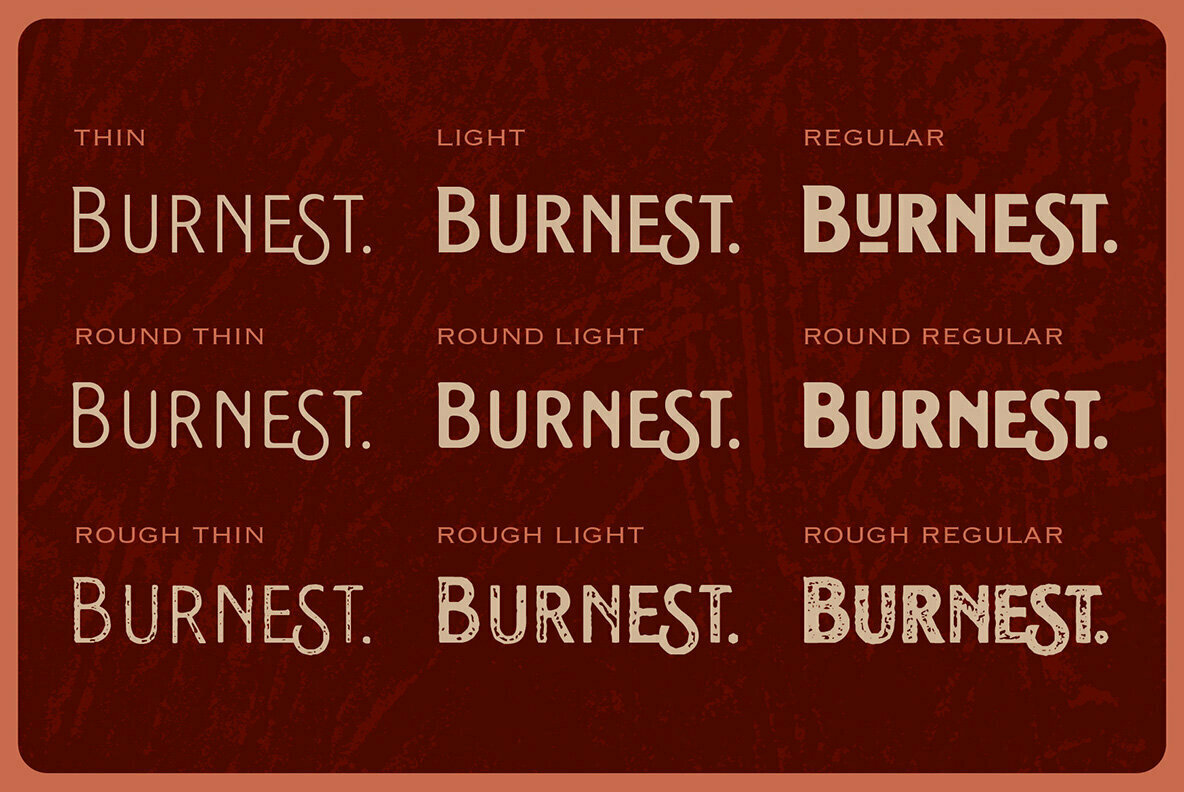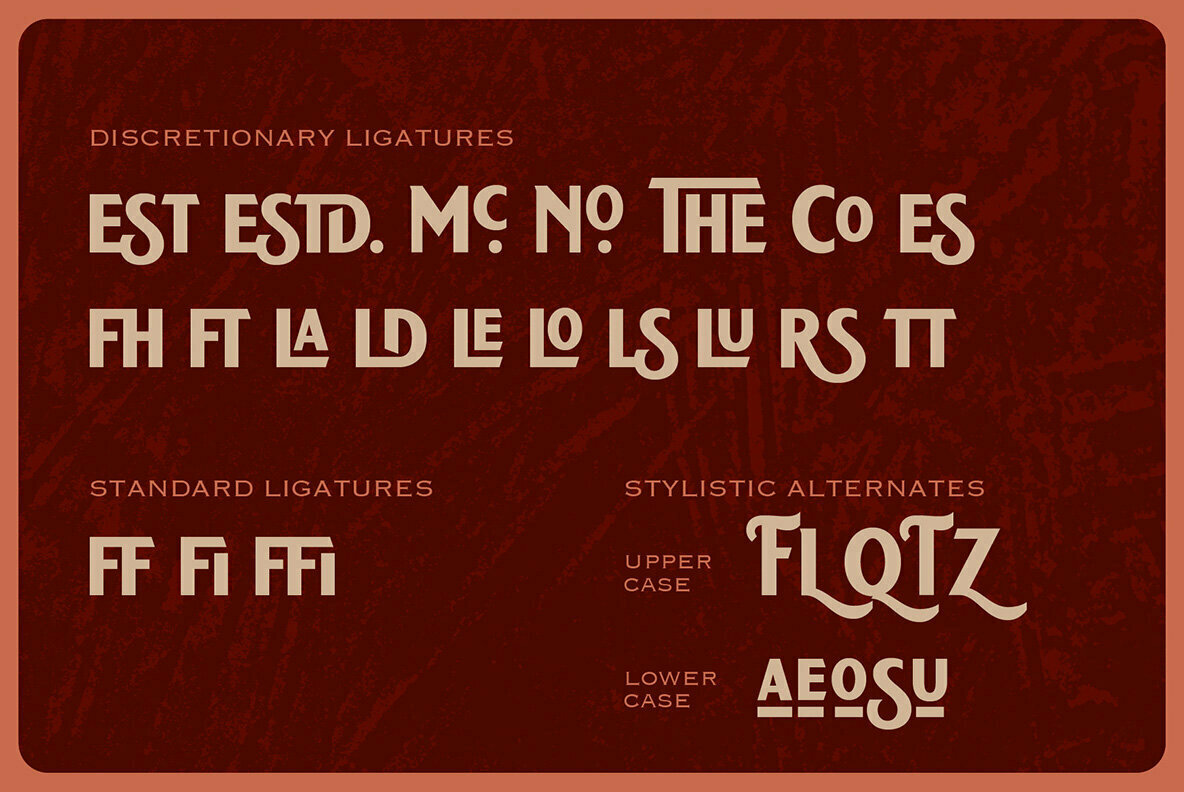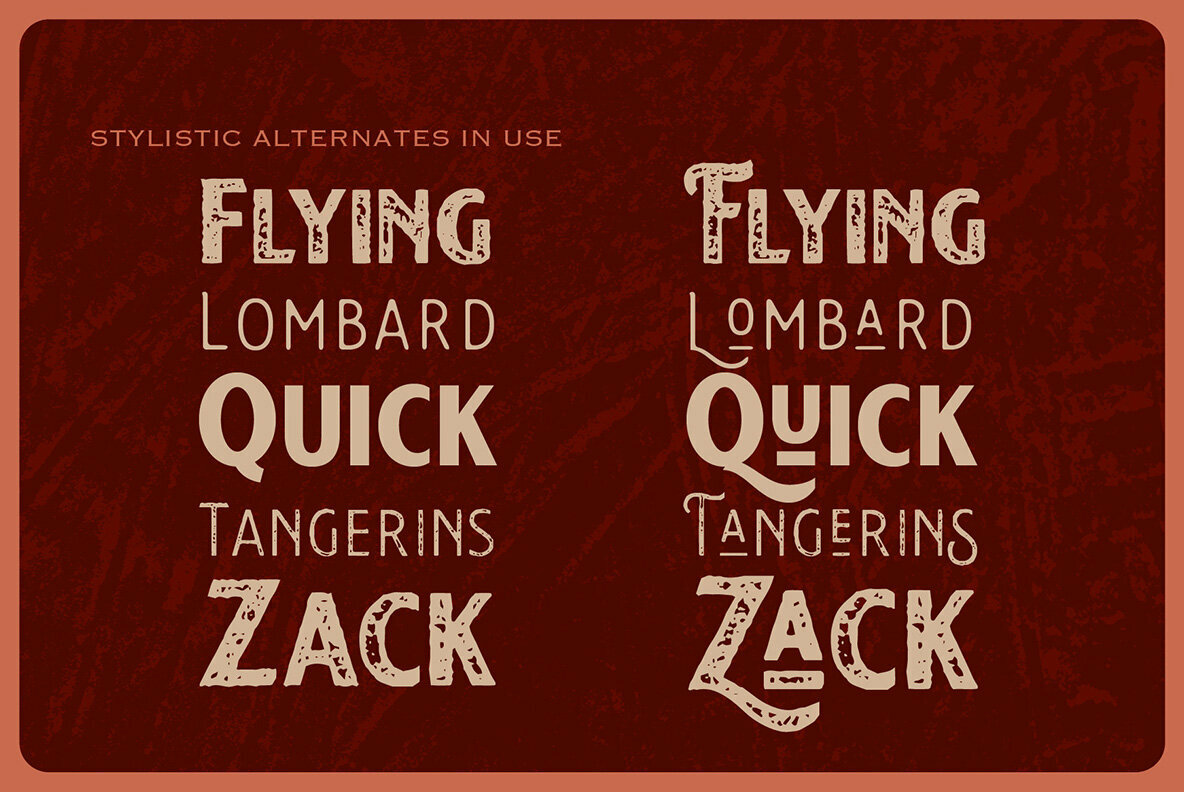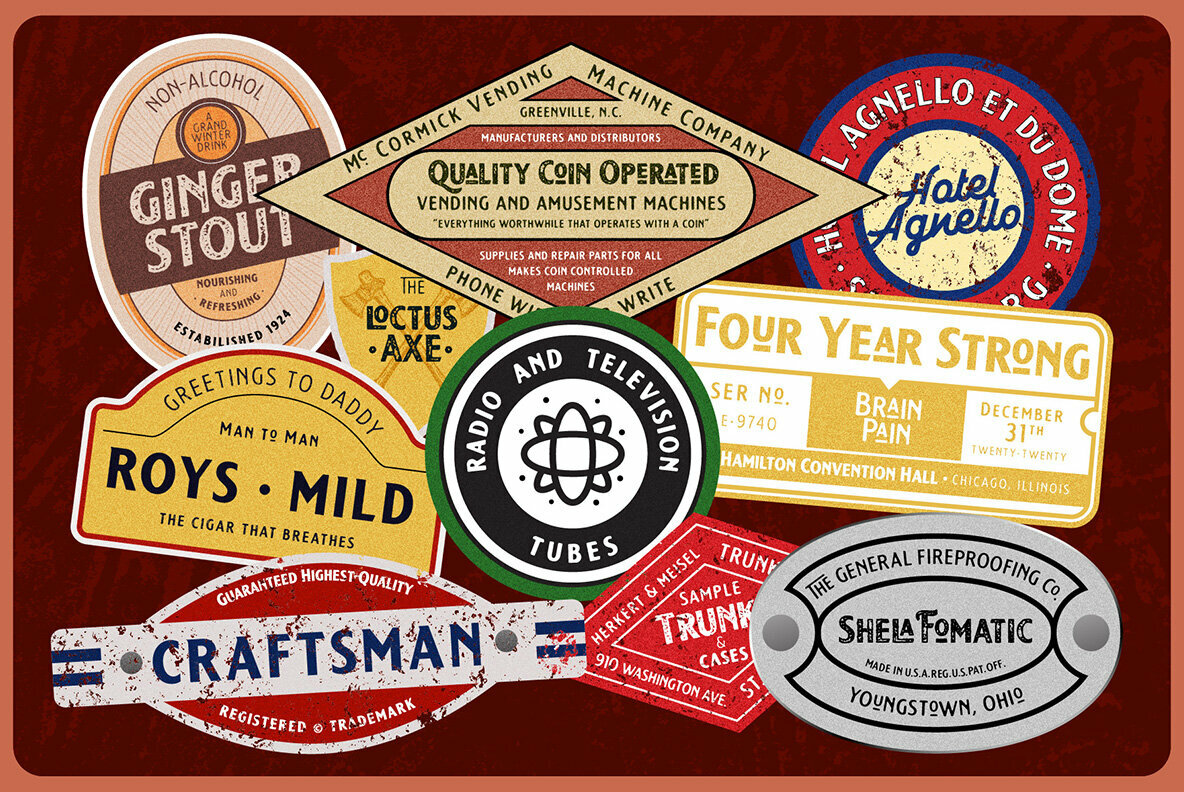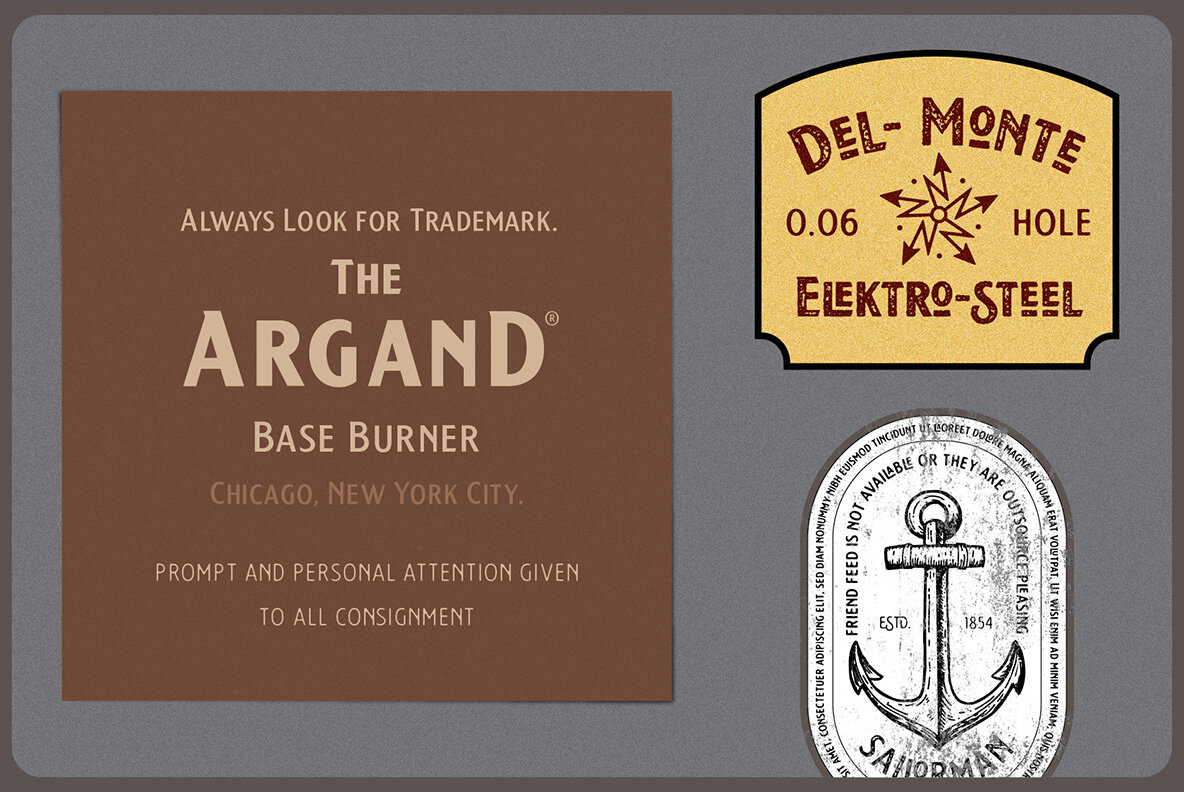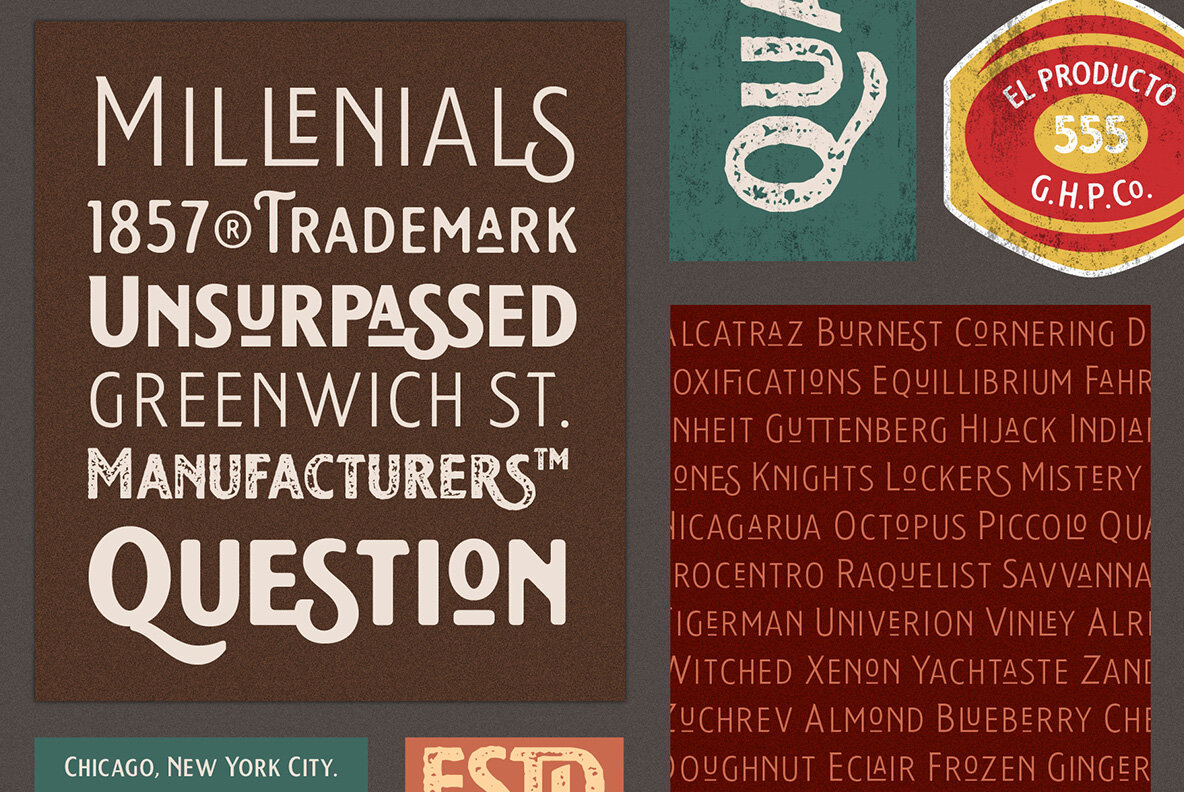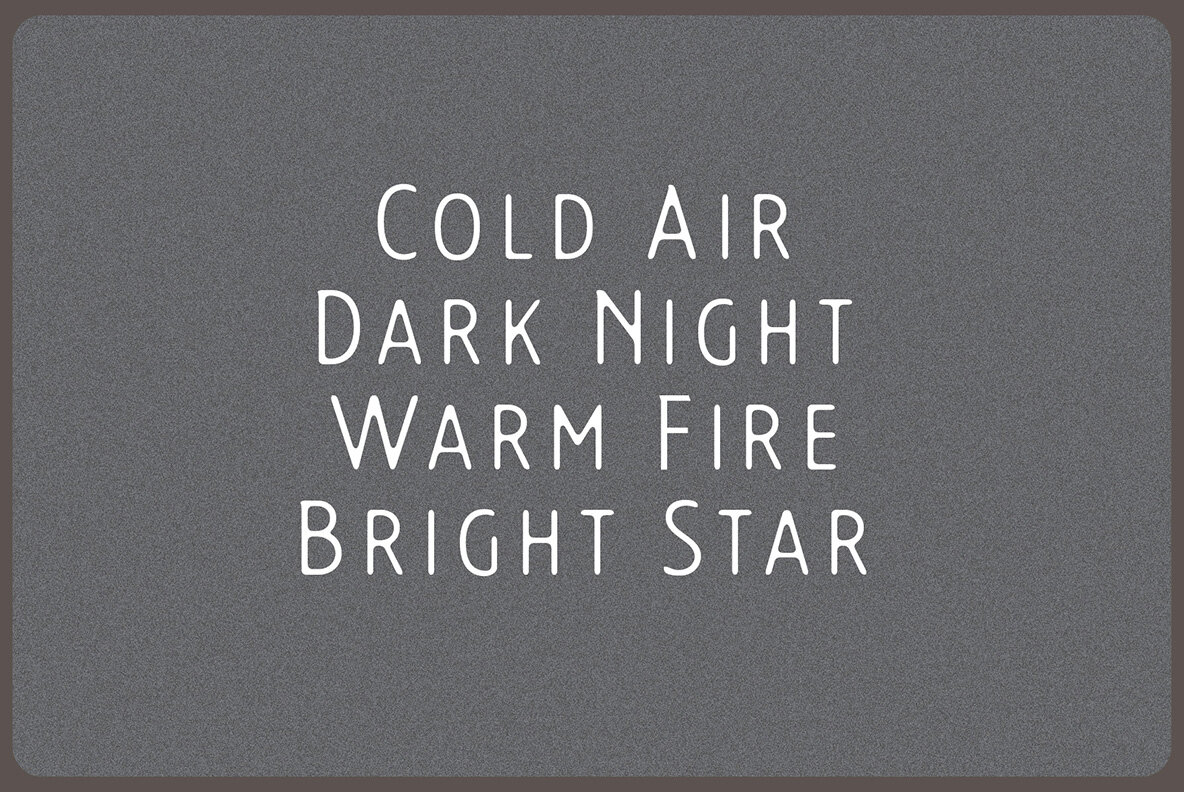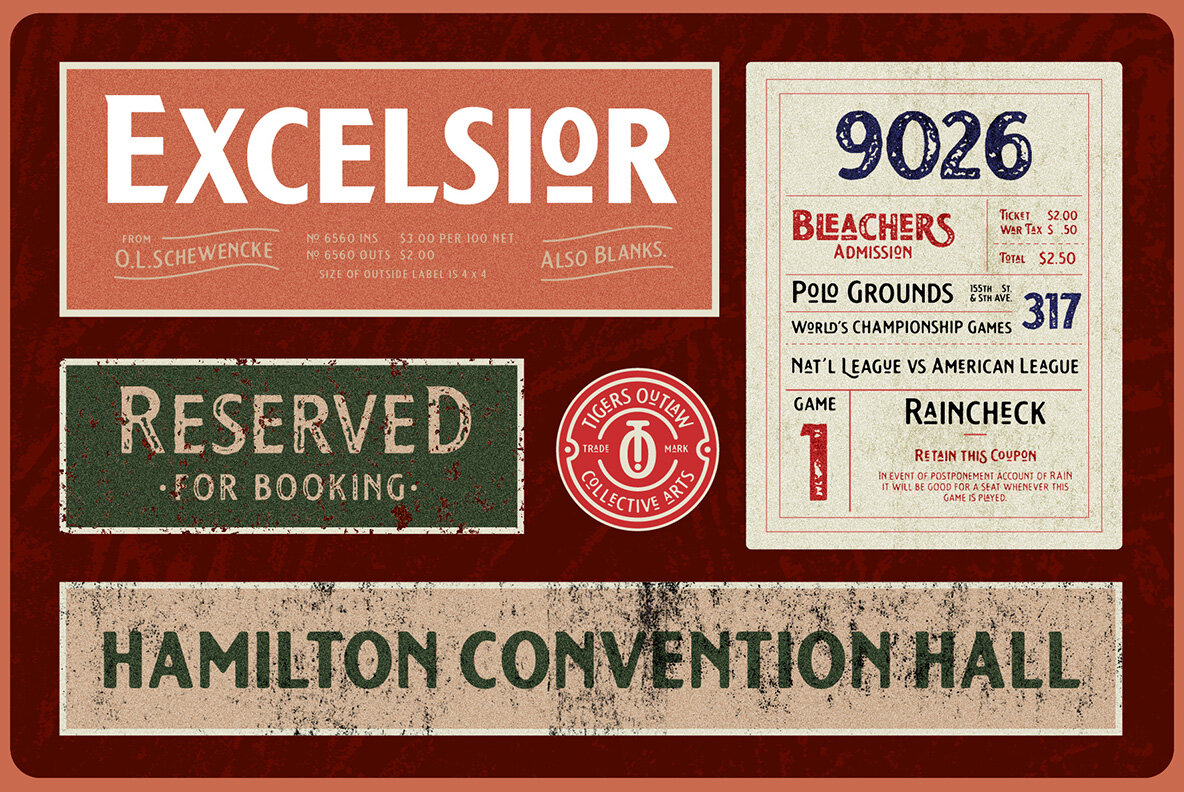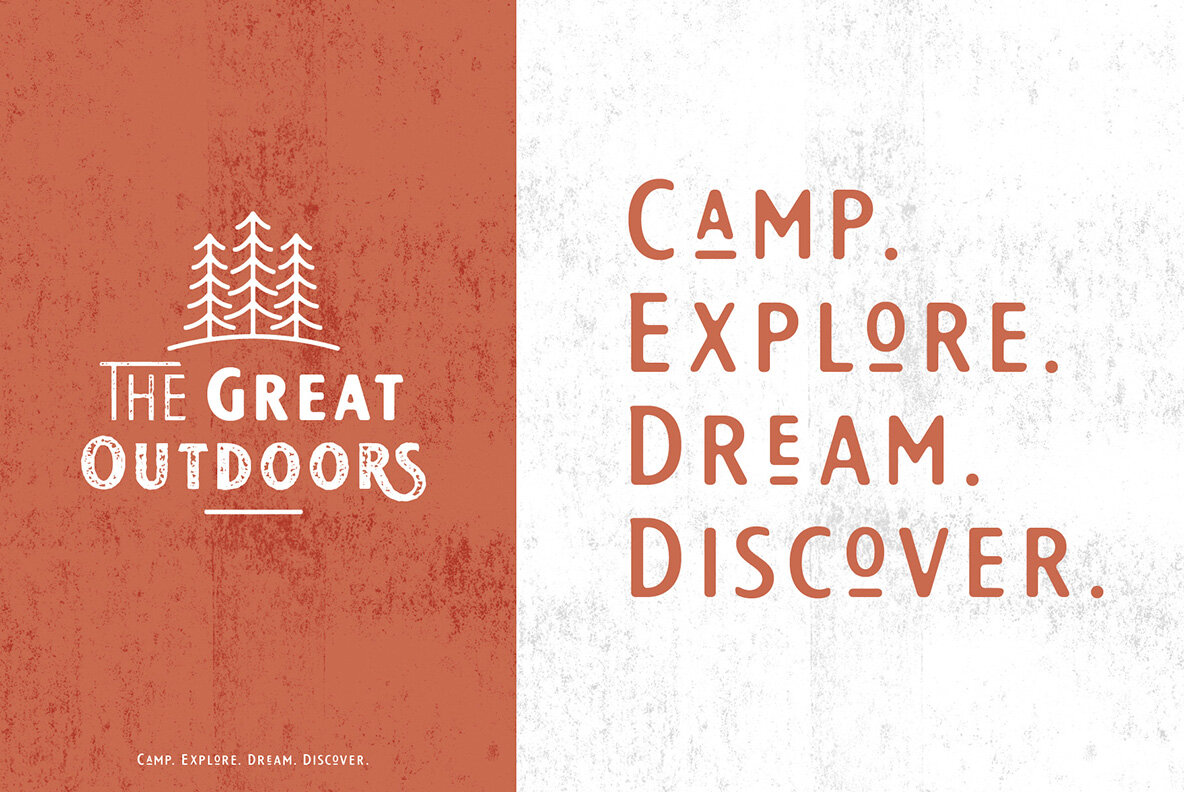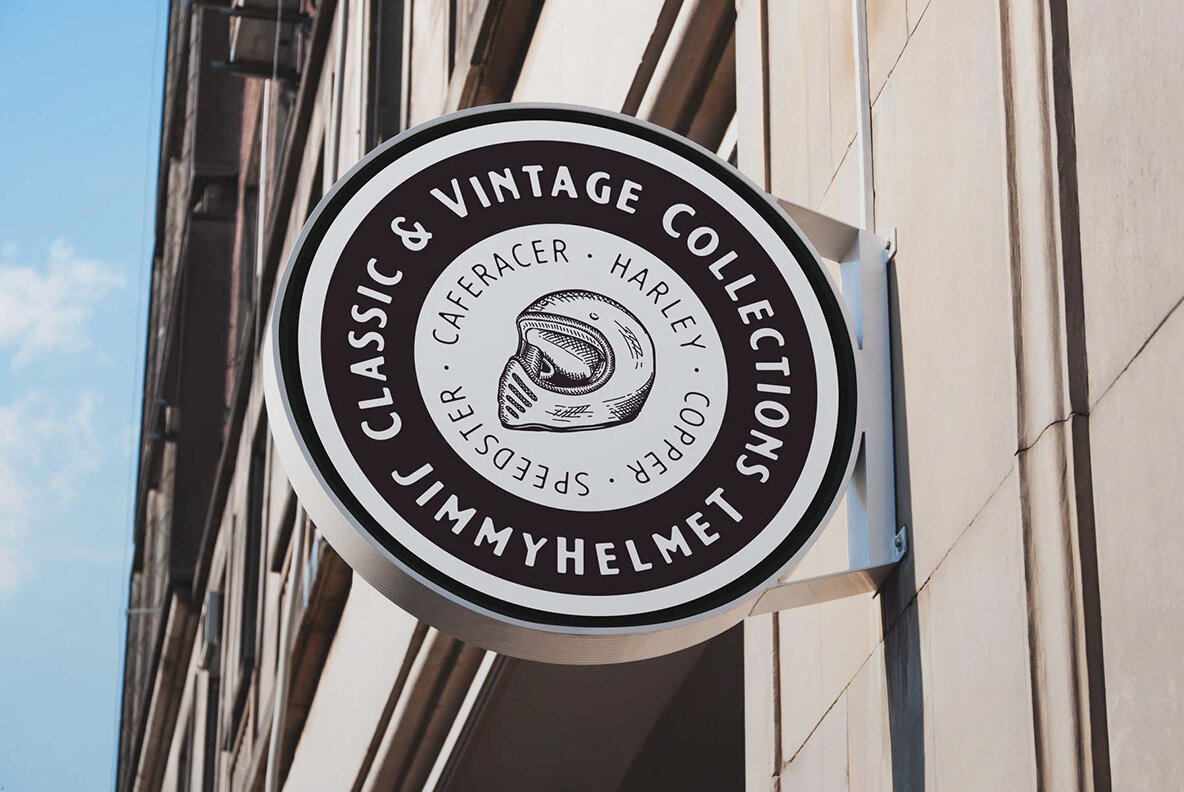
Burnest Font
Burnest Rough Thin
Burnest Round Thin
Burnest Thin
Burnest Light
Burnest Rough Light
Burnest Round Light
Burnest Regular
Burnest Rough Regular
Burnest Round Regular
Embark on a design journey with Burnest, a vintage-inspired typeface that captures the rugged essence of the great outdoors. Ideal for projects centered on camping, adventure, and exploration, Burnest combines a strong visual identity with versatility that appeals to enthusiasts of masculine and wild design aesthetics.Burnest: A Vintage-Inspired Typeface for Adventurous Design